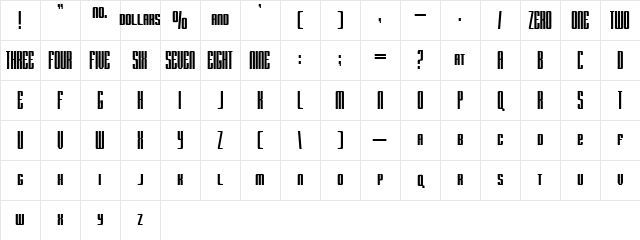
RADAR by Doug Sheets Regular Free Font
RADAR by Doug Sheets Regular
Foundry: DOUG SHEETS
Designer: DOUG SHEETS
RADAR by Doug Sheets Family
RADAR by Doug Sheets Regular
Design Context for RADAR by Doug Sheets
RADAR by Doug Sheets is a composed and adaptable typeface that performs quietly and consistently across a wide range of design contexts.
Who designed the RADAR by Doug Sheets Regular font?